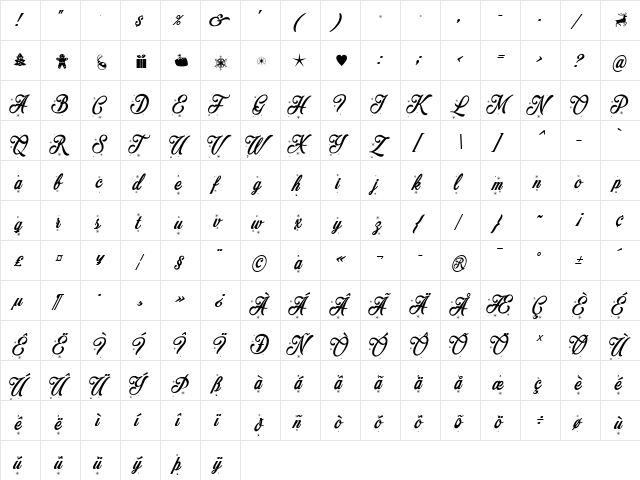
Merry Christmas Flake Regular
Design Context for Merry Christmas Flake Typeface
Merry Christmas Flake is a composed and adaptable typeface that performs quietly and consistently across a wide range of design contexts.
Pro Tip: Use Merry Christmas Flake in both headline and body roles to test its range before committing to a single application.